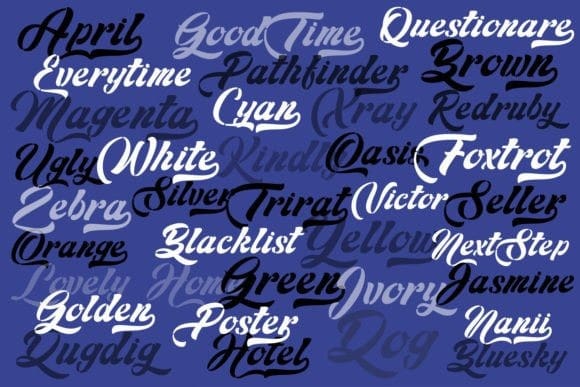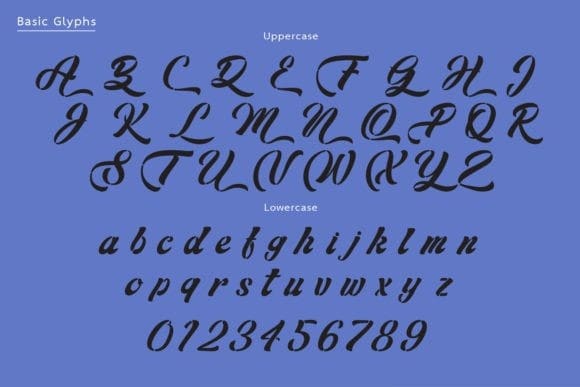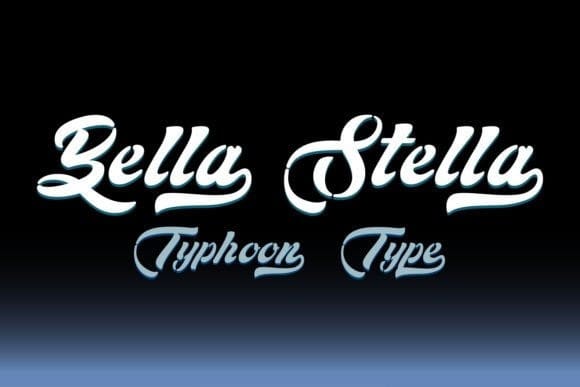
Bella Stella Font
Bella Stella Font is a beautifully crafted font that mimics the look of letters written with a flat brush, inspired by retro ribbon-style poster typography. Each uppercase letter features elegant, sweeping tails that create a sense of fluidity and harmony with the rest of the text.
The font’s unique characteristic is its stencil-style design, where the letters are separated, giving it a distinct and striking appearance. With a slight slant, the letters convey a sense of motion and rhythm, adding vibrancy to any design.
Additionally, all lowercase letters come with special alternative characters (PUA encoded) featuring retro-style sweeping tails, perfect for decorating the ends of sentences with flair. Bella Stella is easy to read and visually captivating, making it ideal for various advertising and promotional materials.